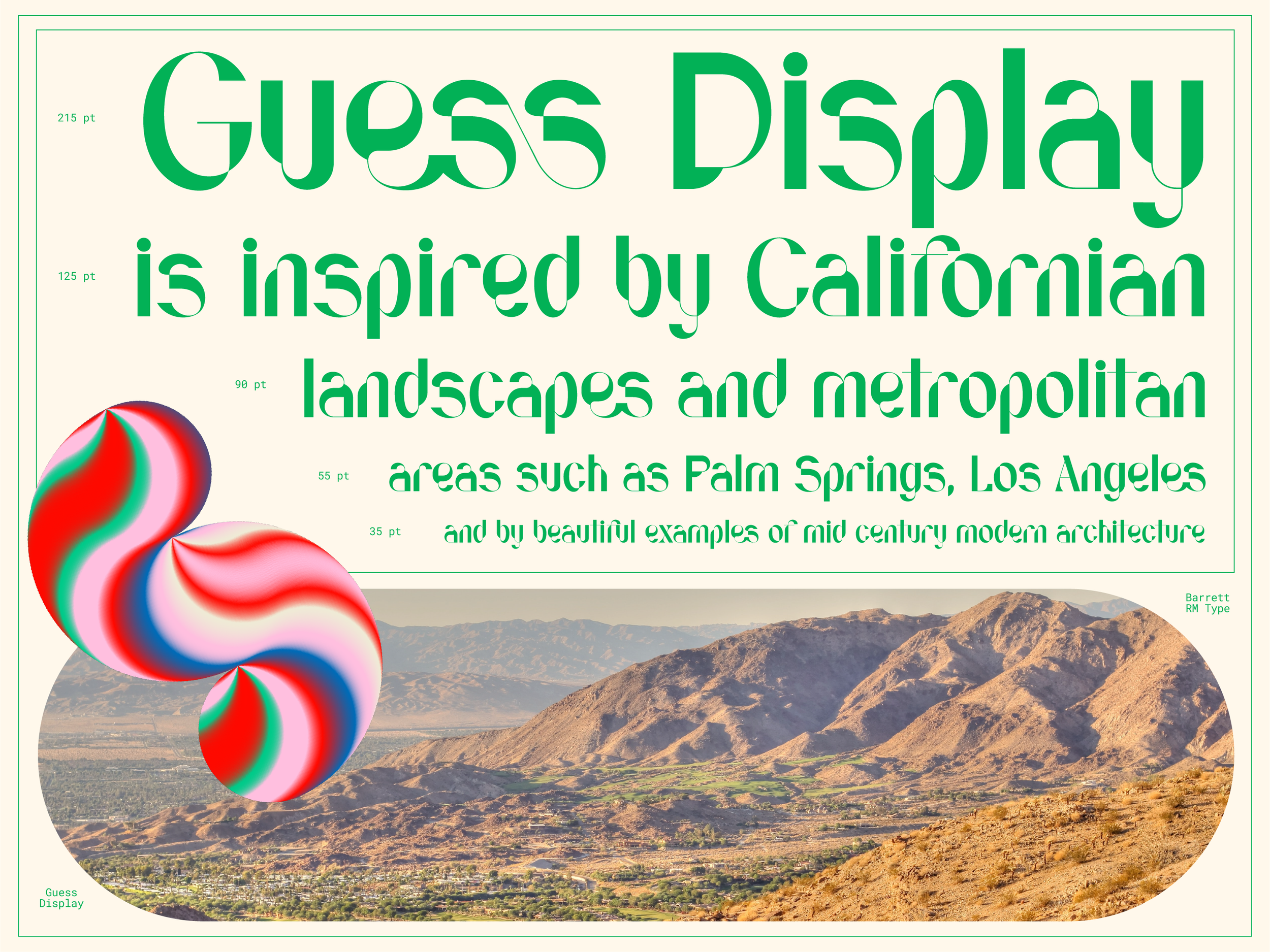
Guess is a playful sans-serif display typeface inspired by the natural and urban landscapes of Southern California, from the labyrinthian freeways of Los Angeles to the oasis-like setting of Palm Springs.